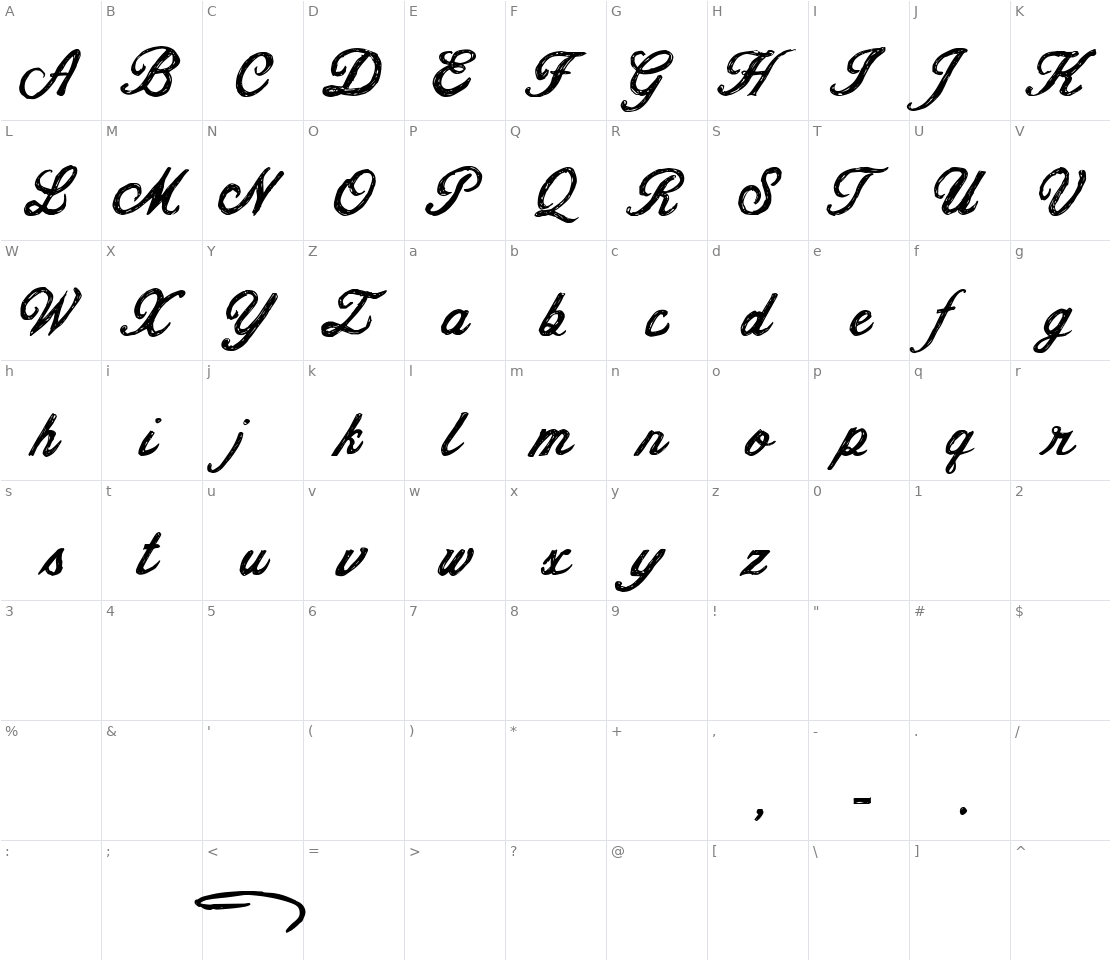
CF Jacques Cartier
CF Jacques Cartier is a formal cursive script from Cloutierfontes with a textured, slightly weathered quality that gives it the look of aged ink on parchment. The letterforms are elegant and historically rooted, with flowing strokes and decorative flourishes that nod to the penmanship of early colonial-era documents. Best used for headlines, invitations, certificates, and branding where you want something that carries genuine historical weight.